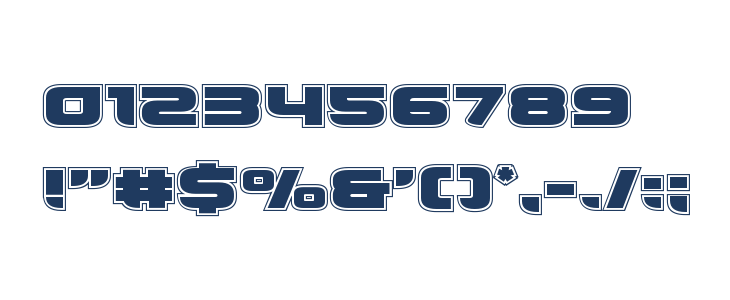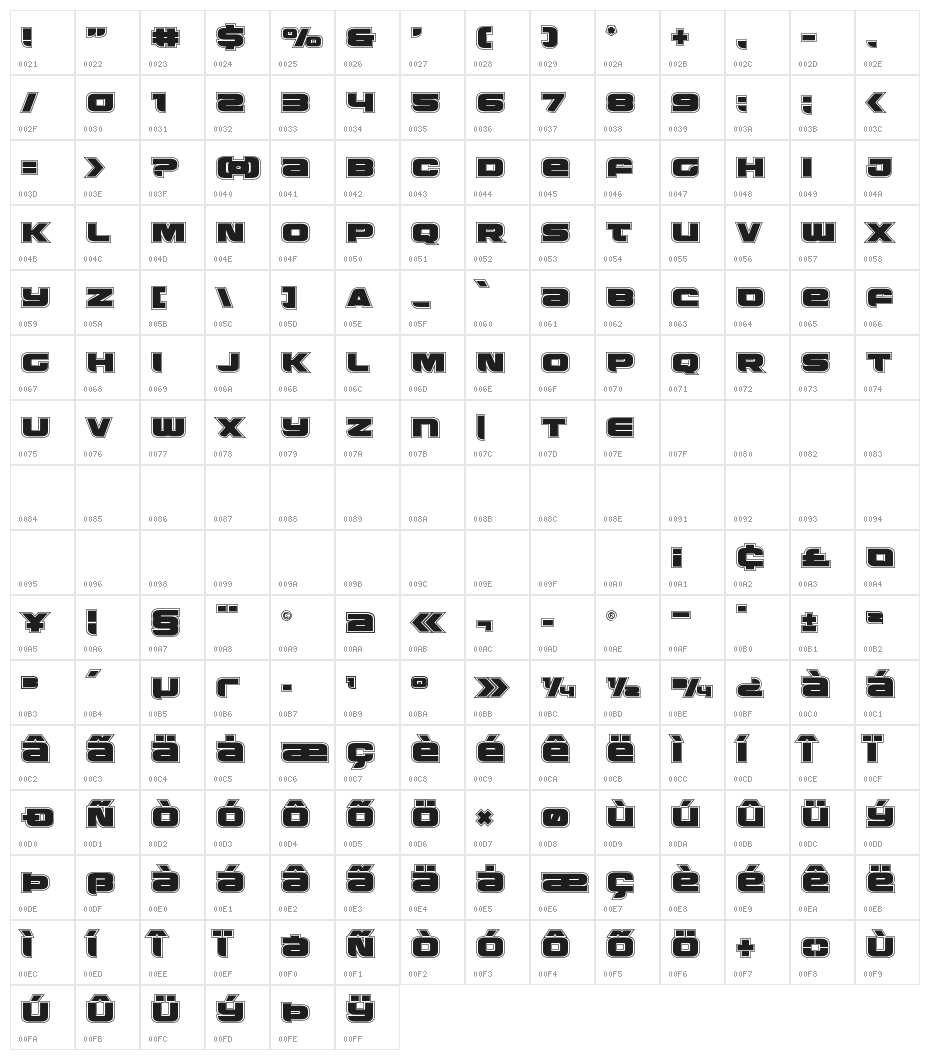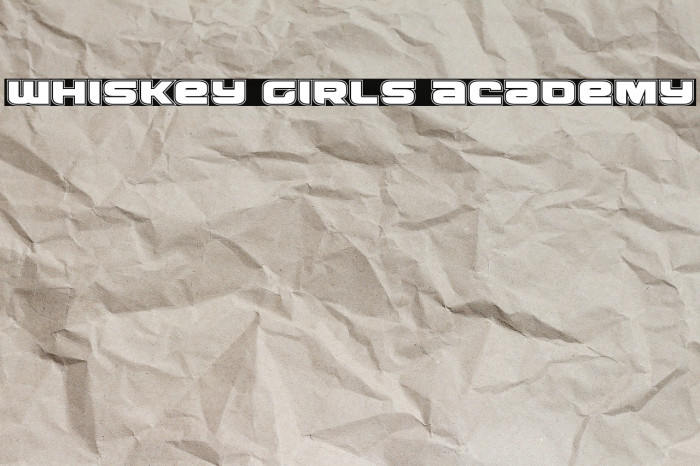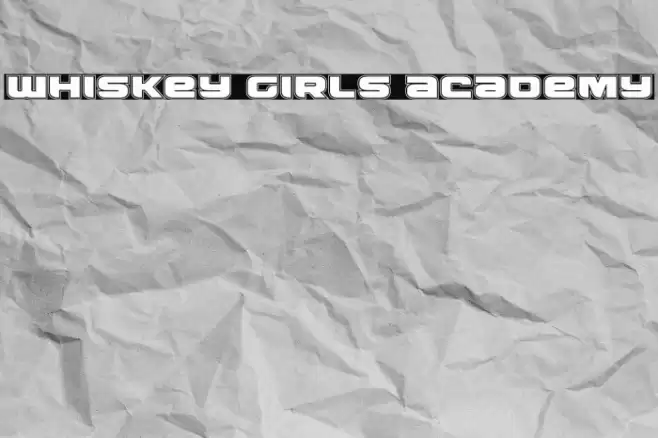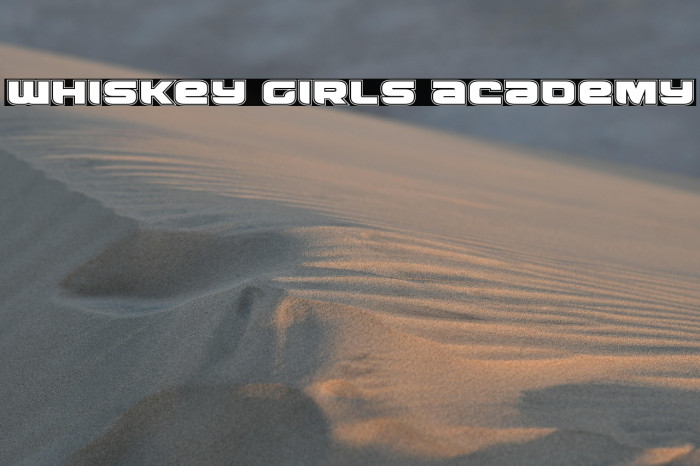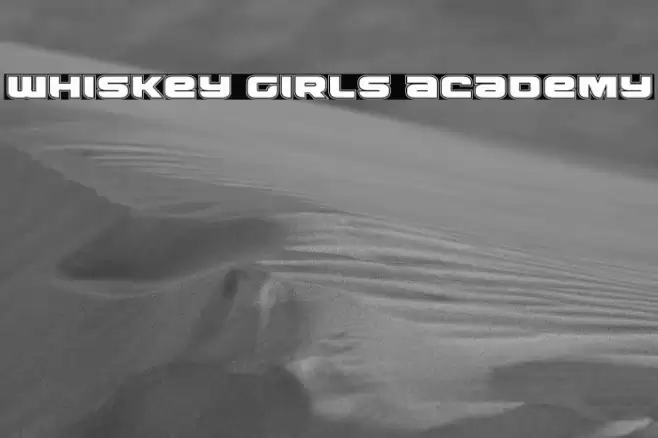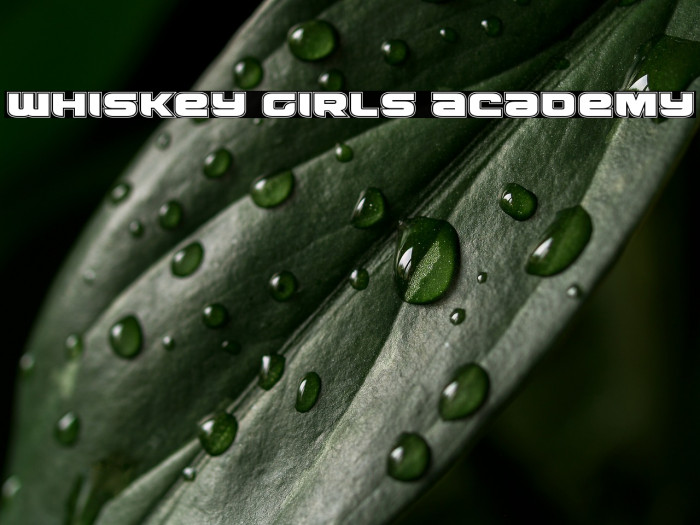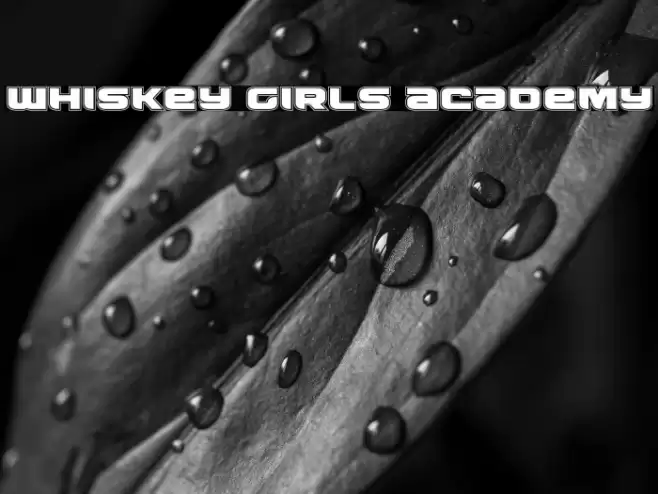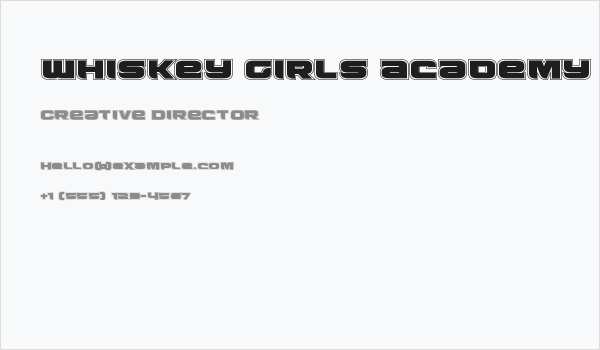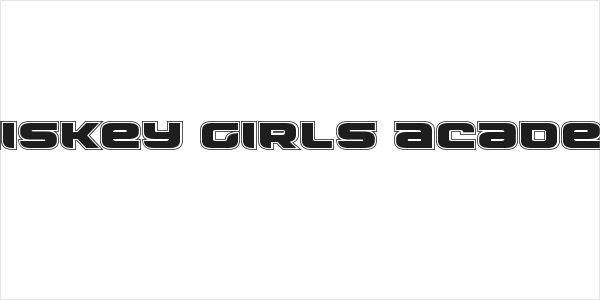
Whiskey Girls Academy Font
Whiskey Girls Academy Description
This font features a bold, geometric design with a strong presence. Each character is outlined, creating a striking contrast between the thick, solid interior and the thin outer lines. The style is modern and assertive, with a blocky, angular appearance that gives it a futuristic feel. The uppercase and lowercase letters maintain a consistent height, enhancing its uniformity. Numbers and special characters follow the same bold, outlined style, ensuring cohesion across all elements. The font's design is ideal for making a statement, with its high impact and readability.
| Proposed Projects | Ideal for branding, headlines, posters, and any project requiring a strong, modern aesthetic. |